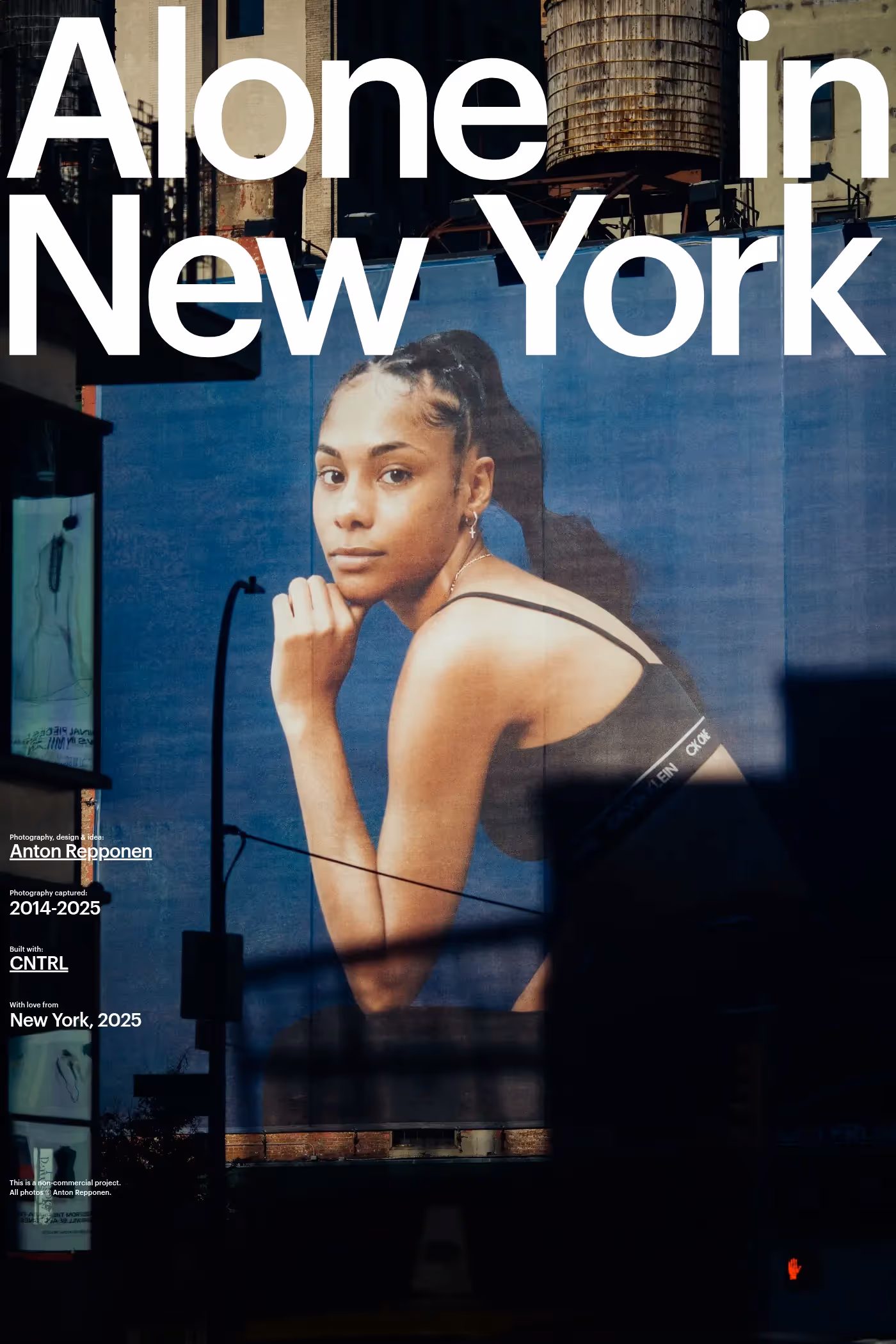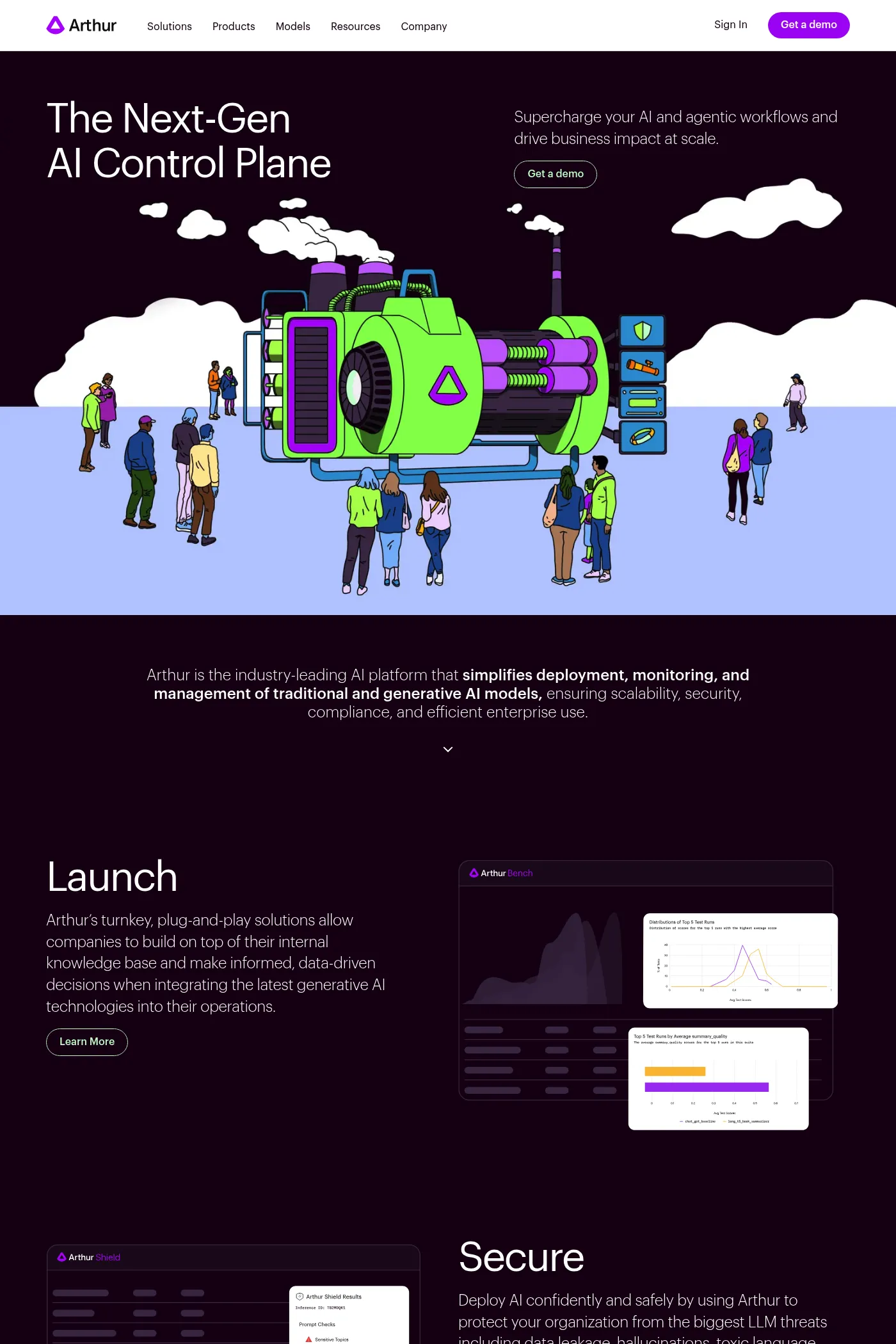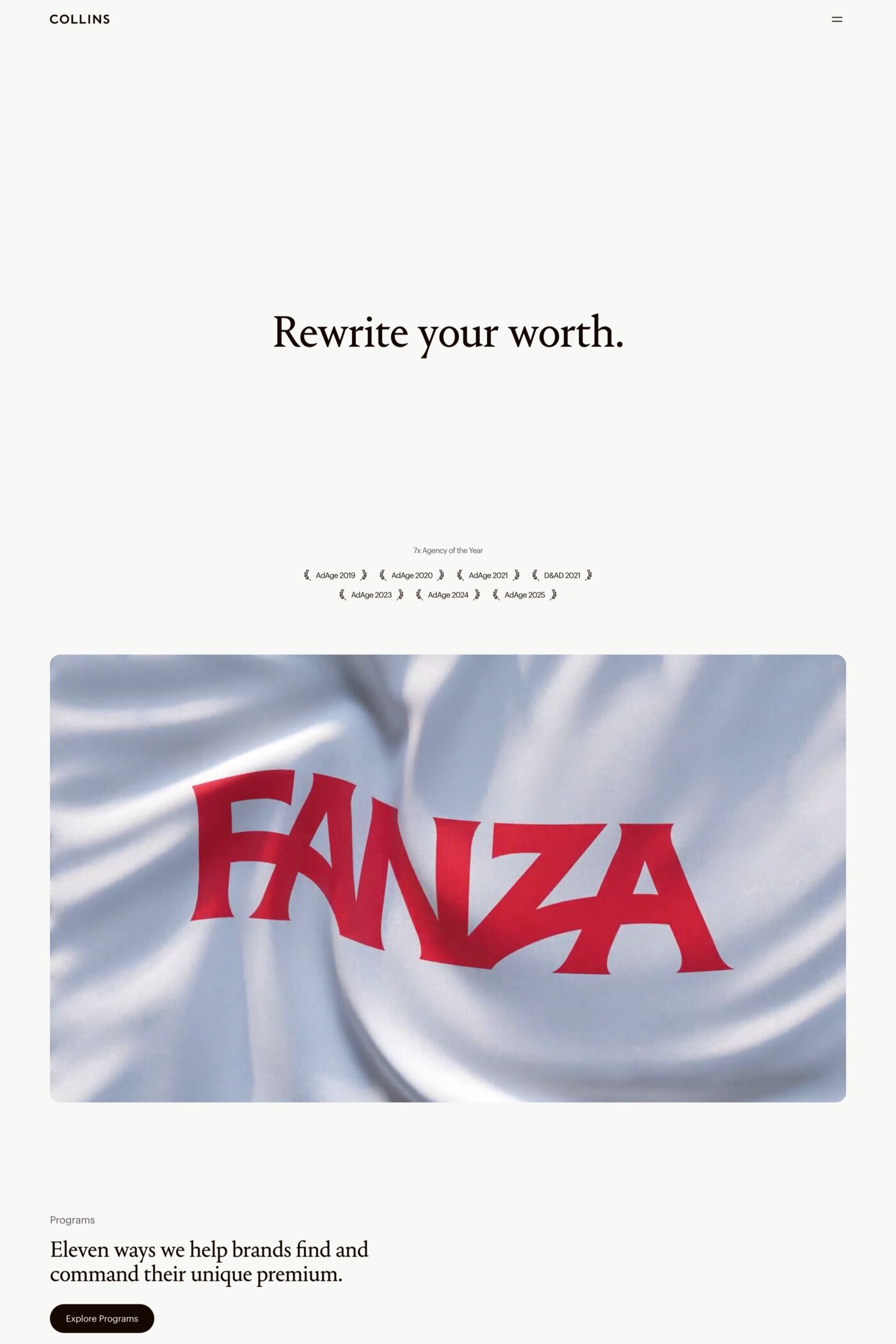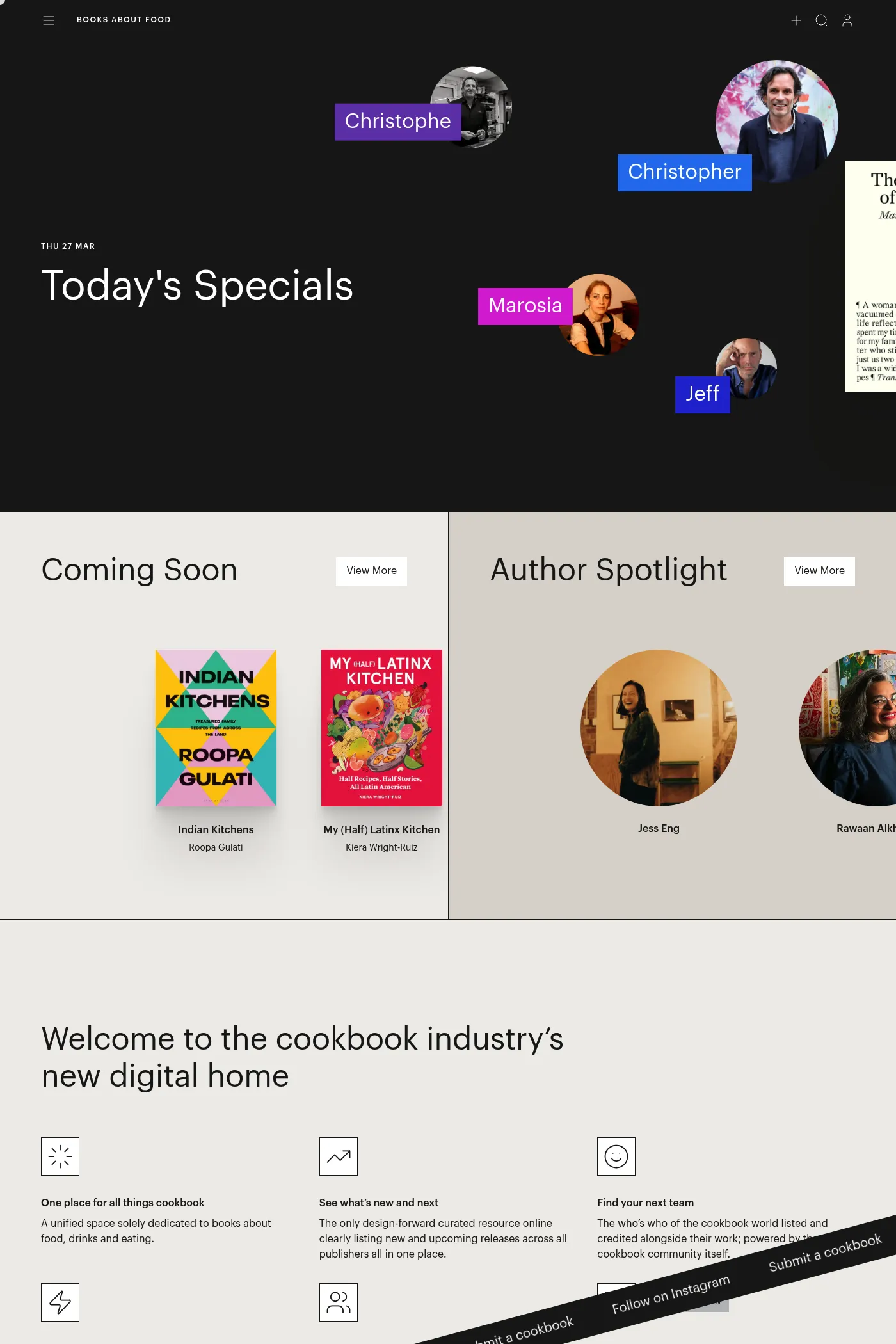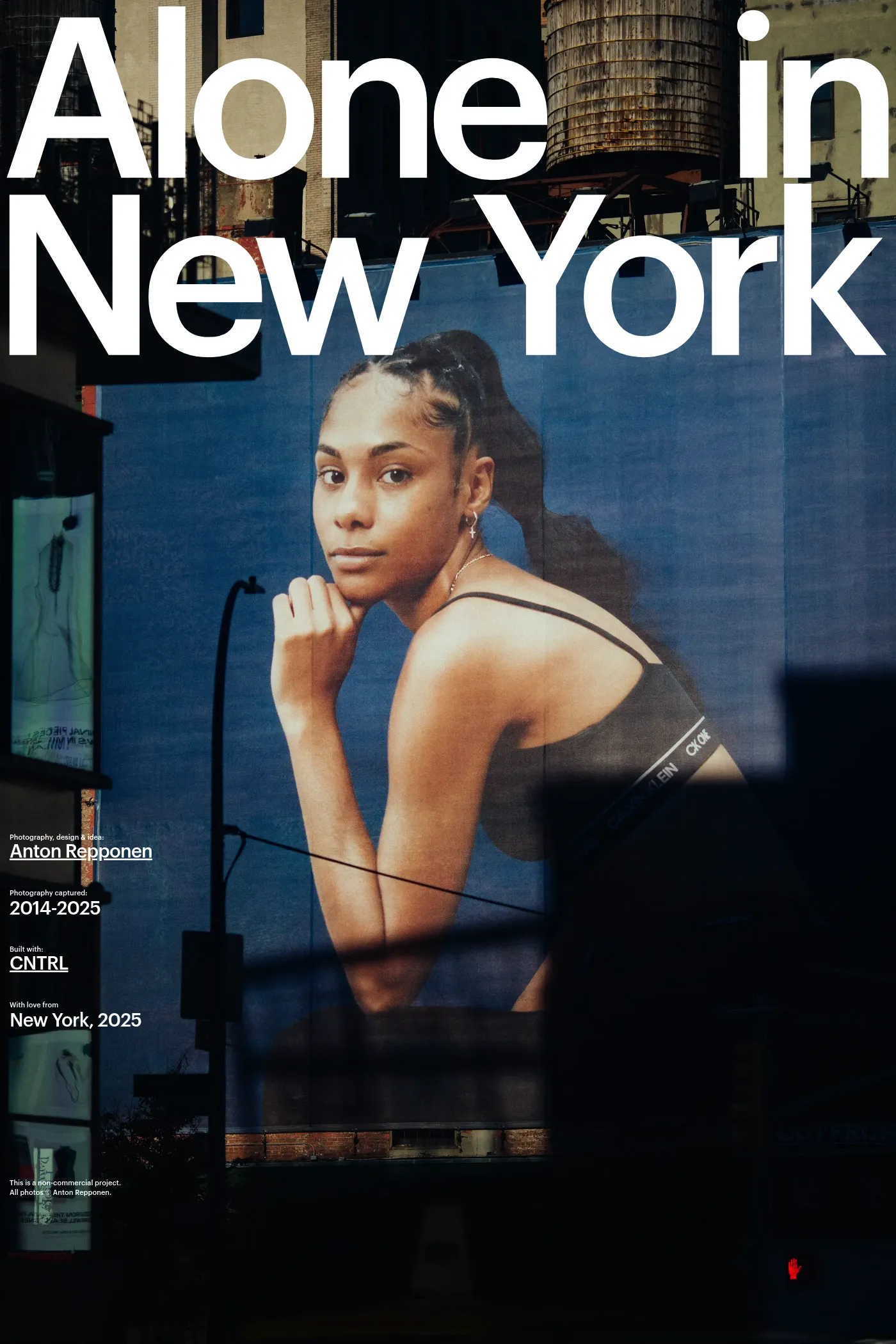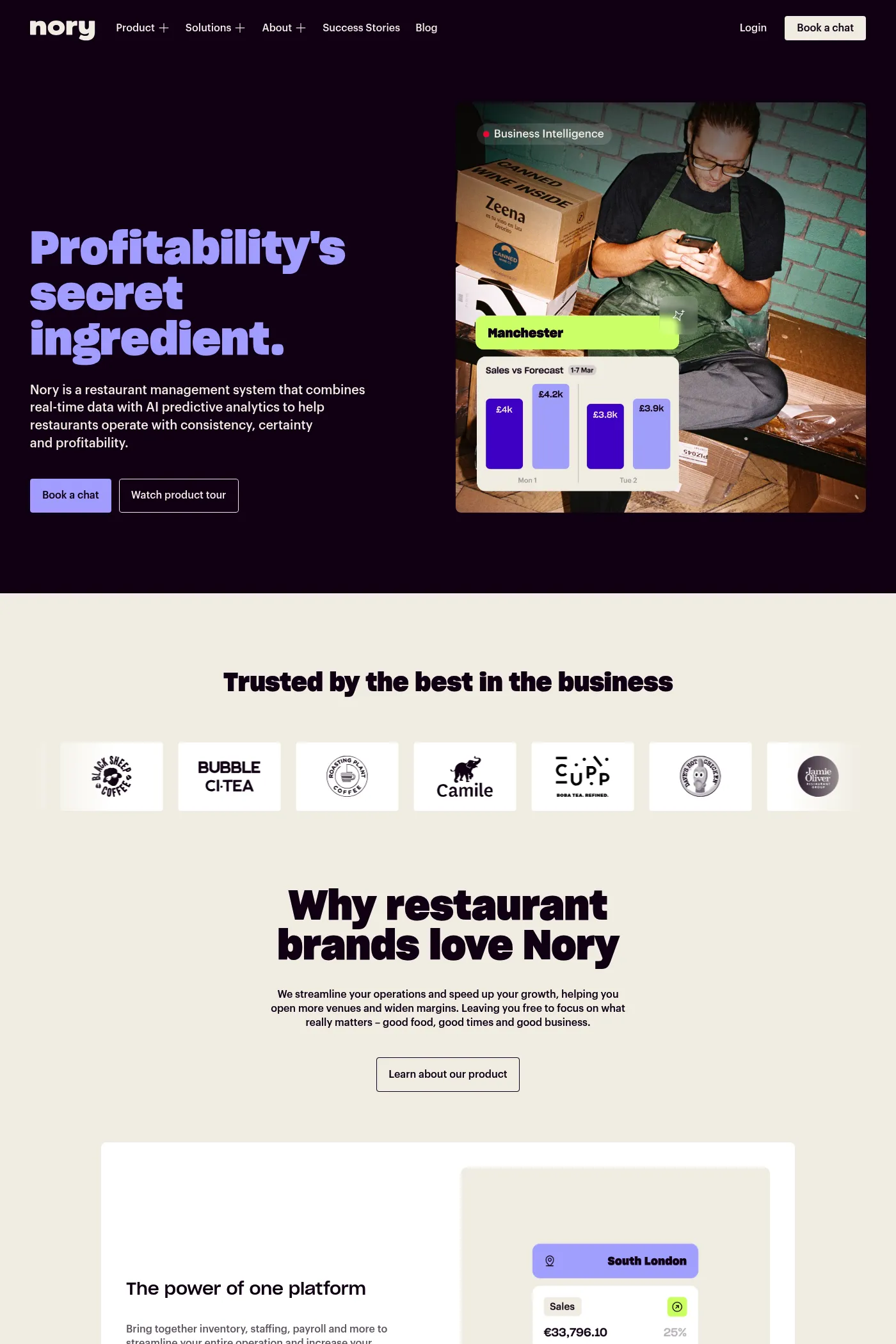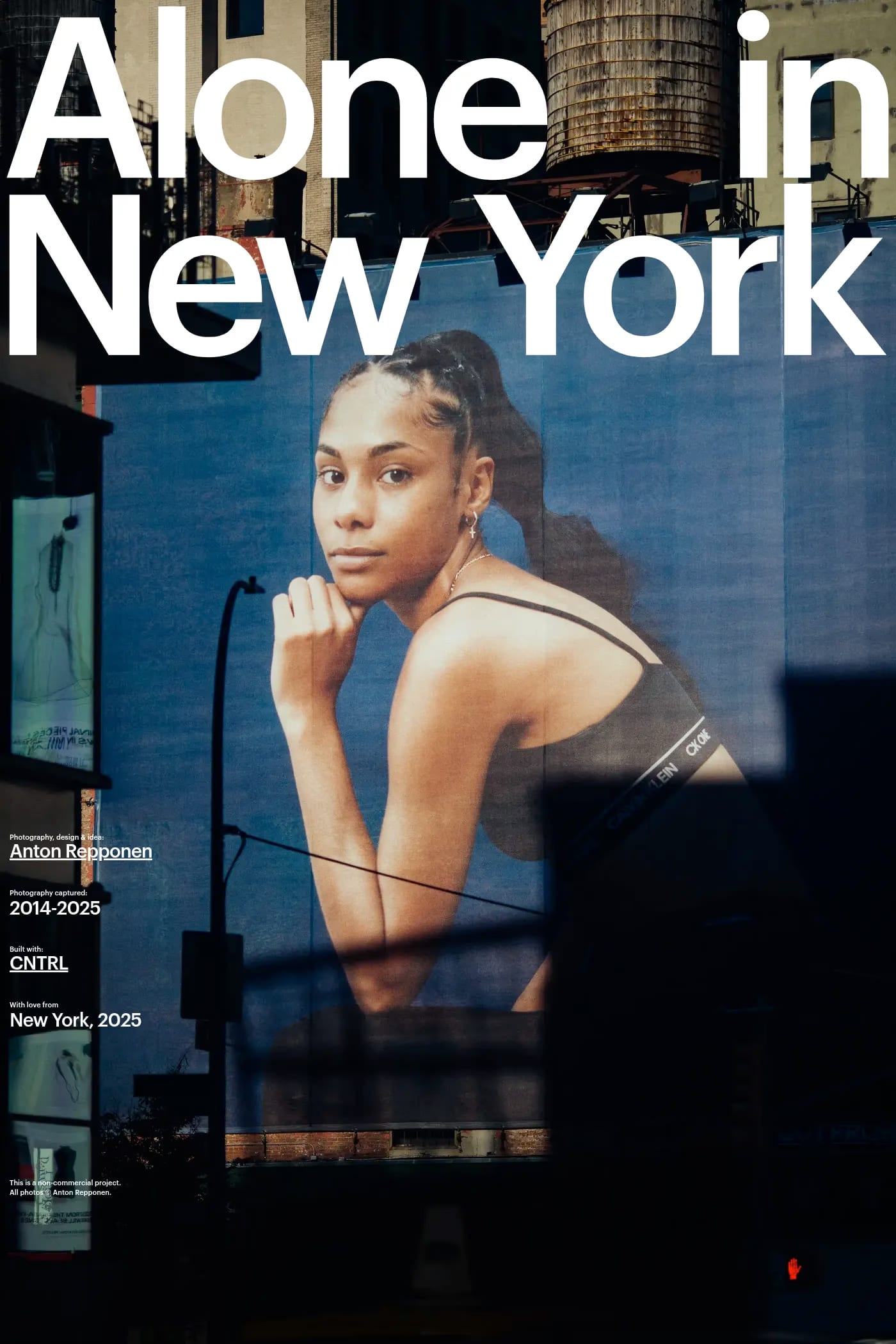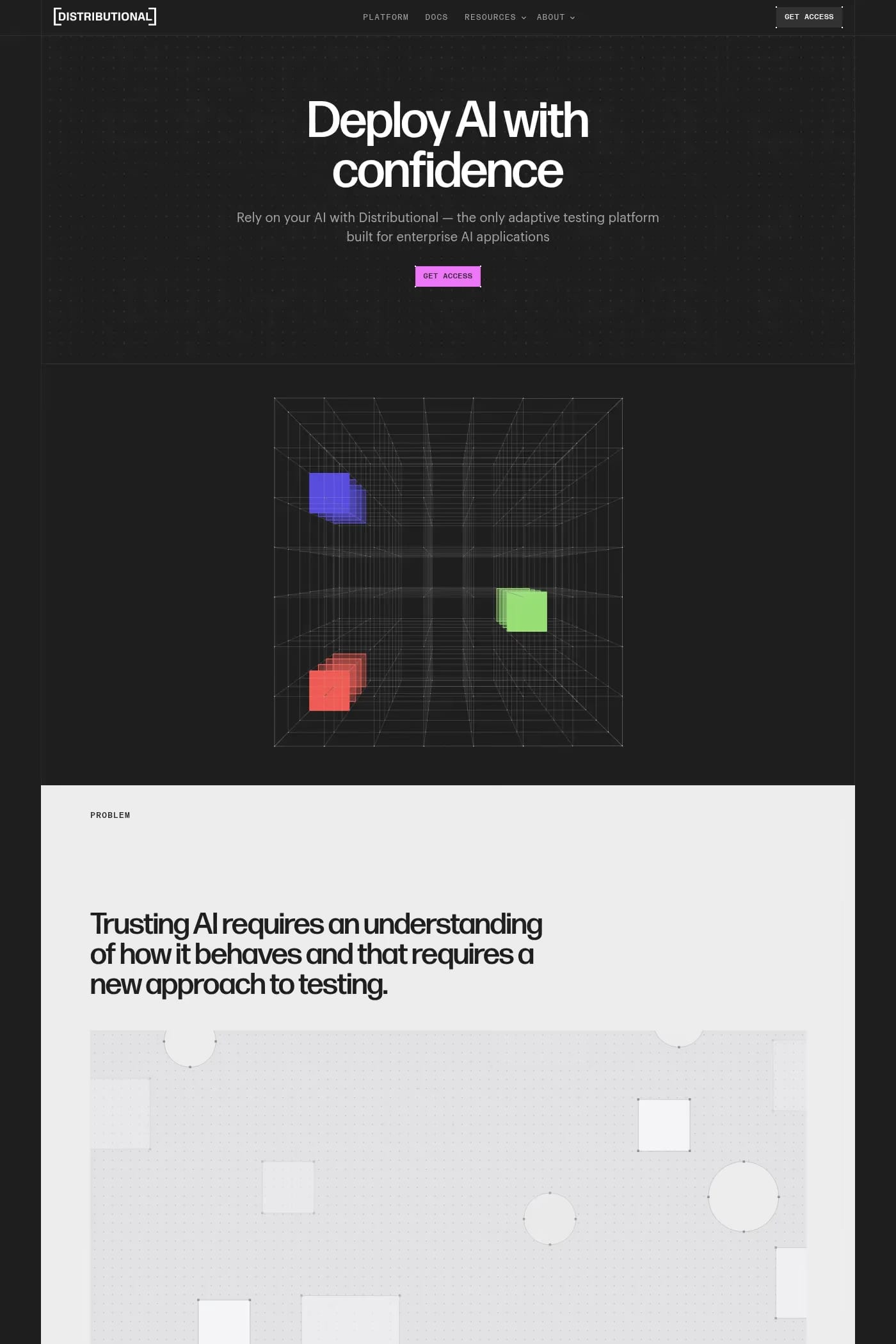
Graphik is a sans-serif typeface from Commercial Type.
Graphik, a deliberately vanilla editorial workhorse, remains one of Commercial Type’s most popular families. This hybrid face offsets the round bowls typical of a geometric sans with the architecture and proportions of a European grotesk, without the baggage of more dogmatic, overused sans serifs mired in postwar modernism. Graphik’s low contrast, open counters, and compact descenders recommend it for use in tight settings like subheads, captions, labels, and running text; human touches like round dots and other details also make it ideal for larger, more impactful uses such as titles, covers, posters, and signage.